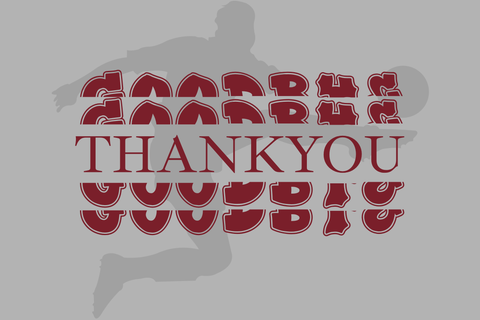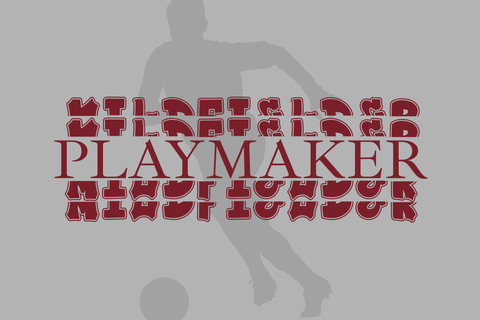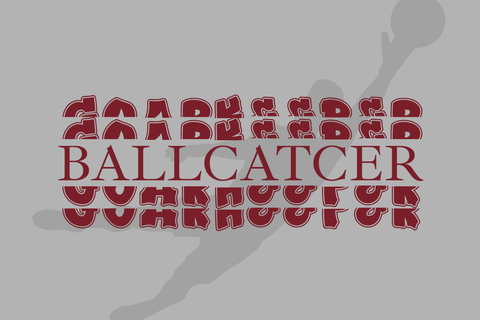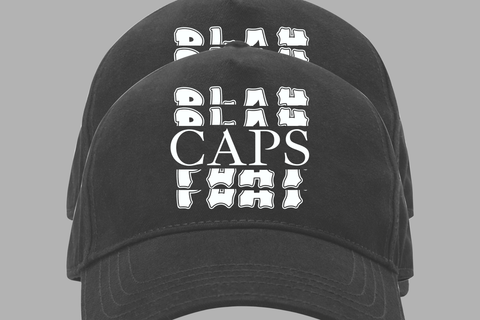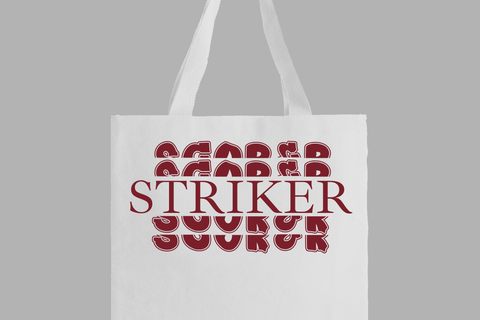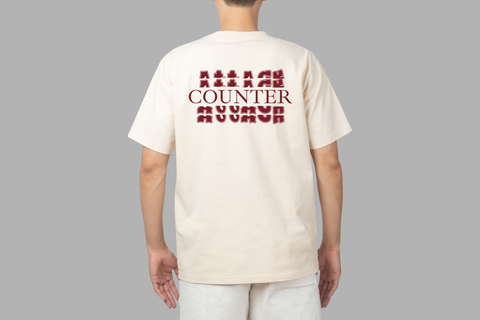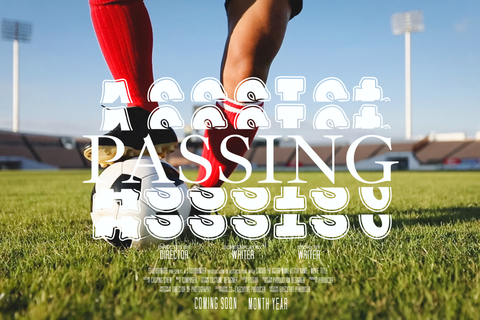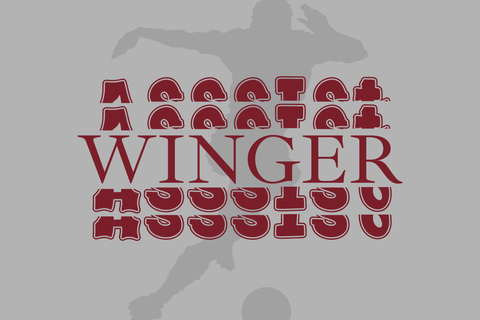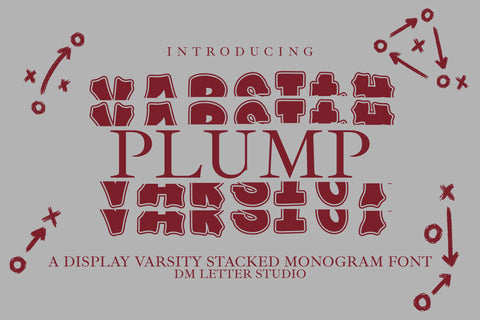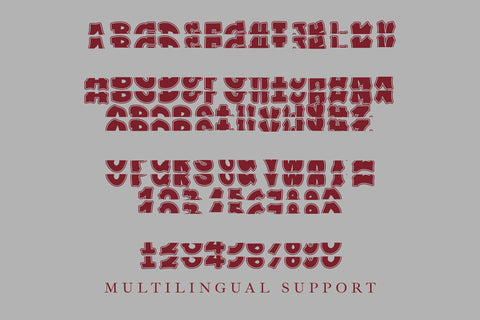
Plump Varsity Stacked Monogram Font
Meet Plump Varsity Stacked Monogram Font
Plump Varsity Stacked Monogram Font mixes college pride with friendly bubble energy, then refines it for vertical initials and short names. Letters are bold, rounded, and tightly aligned, so stacks feel compact without losing legibility. Use it for team bottles, gym bags, helmet decals, letterman gifts, dorm doors, spirit-week tags, and shop signage. Because spacing is even and counters stay open, your monograms read clearly on tiny stickers and still punch on large banners.
Why makers love this varsity stacked monogram font
First, it saves space while staying loud. Next, it cuts cleanly for Cricut, Silhouette, and laser projects. Then it layers beautifully with outline or shadow passes, so two-color effects take minutes. As a result, you can batch custom initials for rosters, clubs, and families with consistent results.
Ready for personalization and merch
Creative uses for Plump Varsity Stacked Monogram Font
Team bottles, locker tags, and backpack patches
Senior-night keepsakes, jersey-name stickers, and pennants
Pro-shop decals, booster-club merch, and fundraiser kits
Spirit posters with stacked chants beside a monogram badge
Design tips for all-star stacks
Keep initials big and lines short. Tighten line spacing to emphasize the stack. Then, add a thick offset or inner fill for instant jersey vibes. Try high-contrast duos—navy & white, black & neon, maroon & cream, or forest & gold. Finally, export at 300 DPI for print and 2× size for web to keep edges smooth.